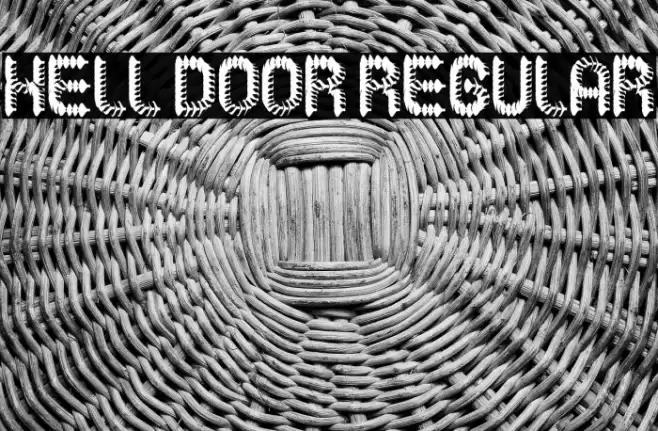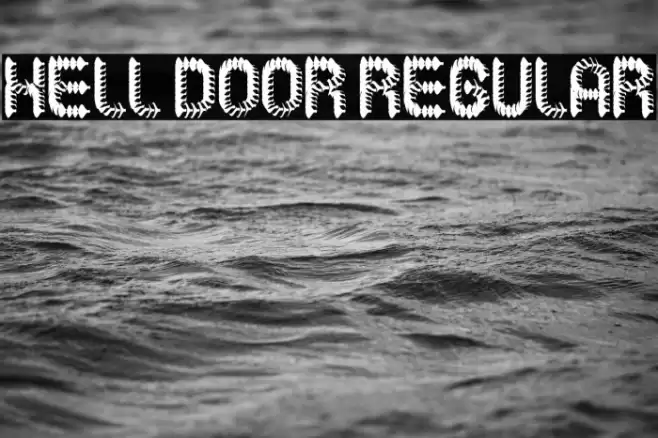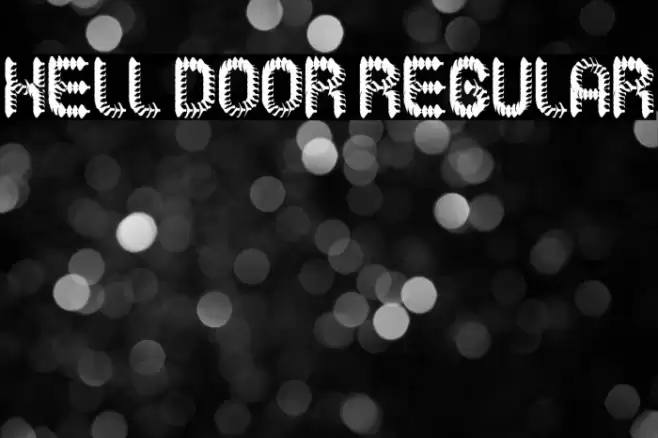
Hell Door Regular Font
Hell Door Regular Description
This font features a unique and intricate design, characterized by a series of interlocking, thorn-like patterns that form each letter. The bold and decorative style gives it a distinct appearance, reminiscent of gothic or horror themes. Each character is crafted with a high level of detail, making it stand out as a display font. The uppercase letters are particularly striking, with their elaborate curves and sharp edges, while the lowercase letters maintain the same thematic consistency. The numbers and special characters are equally detailed, ensuring a cohesive look across all glyphs. This font is ideal for projects that require a dramatic and eye-catching typeface.
A bold, decorative font with thorn-like patterns, ideal for gothic or horror themes from Uncategorized fonts.
- Proposed Projects: Perfect for Halloween invitations, horror movie posters, themed event signage, or any project requiring a dramatic and unique typeface.
- Overall Style: Gothic, Decorative
- Use Case: Headlines, Posters, Logos